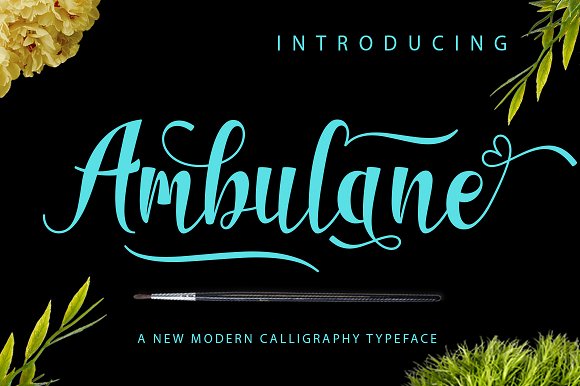
I still remember the frustration of working on a project, hours spent perfecting every detail, only to hit a roadblock when it came to choosing the right font. My client wanted something stylish, elegant, and attention-grabbing. I scoured the internet, tried out countless fonts, but nothing seemed quite right. That was until I stumbled upon Ambulance, a stylish script font packed with swashes. It was love at first sight! 💕
Ambulance Font: The Review
- ✨ Elegant and stylish script font perfect for headlines and titles
- ✅ Packed with swashes to add a touch of sophistication
- 💻 OpenType features for advanced typography control
- 🎨 Highly versatile and can be used for various design projects, from branding to invitations
While Ambulance is an amazing font, there are a few things to keep in mind 🤔:
- ⚠️ Some swashes may not work well in certain software or platforms
- ⚠️ Limited use for body text due to its script nature
The Designer Inspiration Behind Ambulance
Rumor has it that Ambulance was inspired by the elegant typography found in vintage street signs and advertisements. The designer wanted to create a font that captured the essence of classic style with a modern twist. Whether or not that’s true, Ambulance certainly has a timeless charm to it! 😊
Q: Is Ambulance font suitable for body text?
A: While Ambulance is a beautiful font, it’s primarily designed for headlines and titles. Its script nature makes it less suitable for body text, which typically requires a clearer, more legible font.